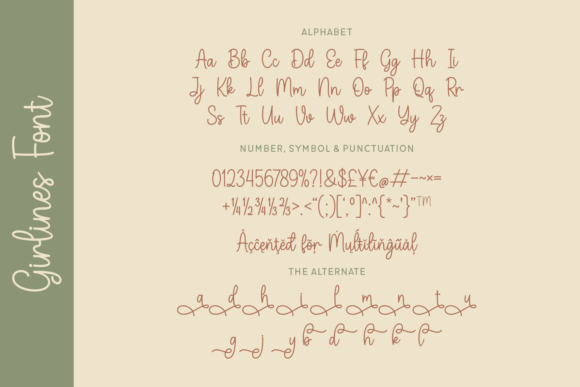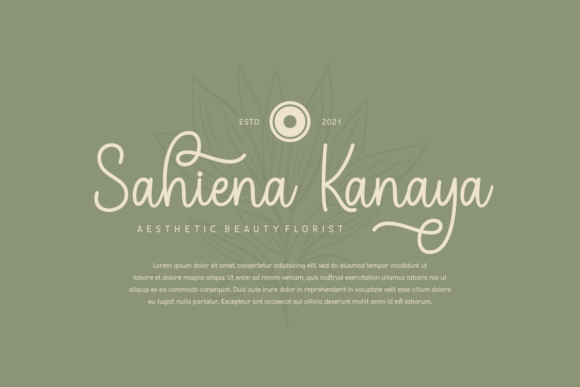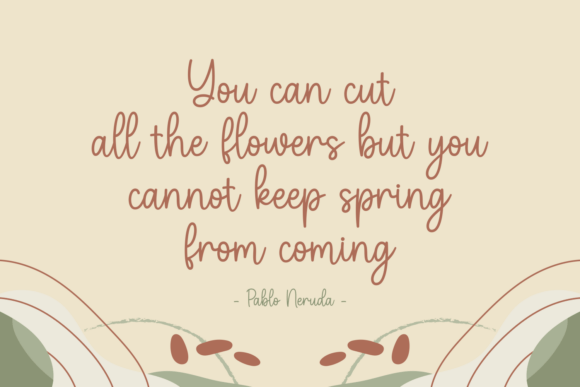
Introduction to Girlines Font
As you sit at your desk, surrounded by scattered papers, empty coffee cups, and the faint glow of your computer screen, the spark of creativity hits you. You’ve got a project in mind – a beautiful wedding invitation, a stunning logo, or a heartfelt greeting card – and you know exactly the font you need to bring it to life: Girlines Font. This charming monoline script font has a way of adding a soft, feminine touch to any design, making it a valuable resource for designers seeking to elevate their creative projects.
With its smooth strokes and delicate swashes, Girlines Font is a high-quality design resource that’s perfect for a wide range of applications, from social media posts to branding materials. Whether you’re working on a personal or professional project, this elegant font is sure to impress. And the best part? It’s available for free download, making it an accessible and versatile design tool for creatives of all levels.
Key Features of Girlines Font
- High-quality font designed for creative projects, ideal for use as a design resource.
- Unique, modern design with a transparent background, perfect for adding a touch of elegance to any project.
Honest Review: Girlines Font
I recently stumbled upon the Girlines Font and I’m excited to share my thoughts on it. As a designer, I’m always on the lookout for high-quality design resources to elevate my creative projects. And let me tell you, Girlines Font definitely delivers.
- What works well: ✨ The font has a clean and modern design that’s perfect for a wide range of creative projects, from logos to brochures. The transparent background makes it easy to customize and integrate into your design.
- What works well: ✨ The font is highly customizable, allowing you to adjust the size, color, and style to fit your needs.
However, I did encounter a few limitations with the Girlines Font:
- Limitations: ⚠️ The font can be quite dense, making it difficult to read at small font sizes. This might be a concern for designers working on text-heavy projects.
- Limitations: ⚠️ The font doesn’t come with a complete character set, which might limit its usability for certain languages or special characters.
Getting the Most Out of Girlines Font
To get the most out of Girlines Font, consider the following tips:
- Experiment with different font sizes and styles to achieve the desired effect.
- Combine Girlines Font with other high-quality design resources for a unique and cohesive look.
- Take advantage of the transparent background feature to create visually appealing graphics and designs.
Common Use Cases for Girlines Font
Girlines Font is suitable for a wide range of creative projects, including:
- Logos and branding materials.
- Social media graphics and posts.
- Infographics and data visualizations.
- Print materials, such as business cards and brochures.